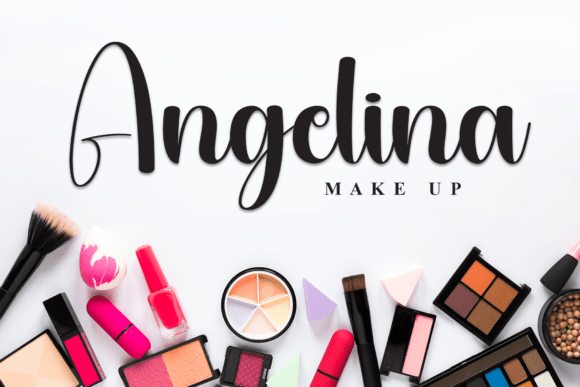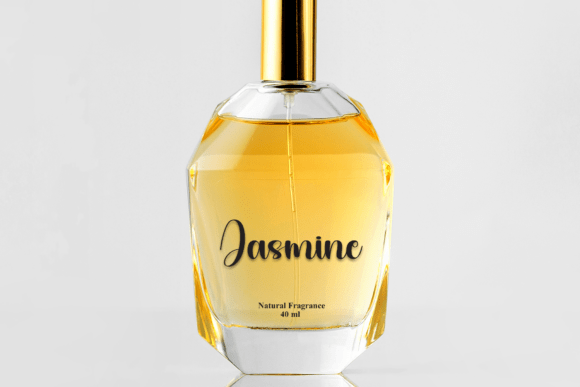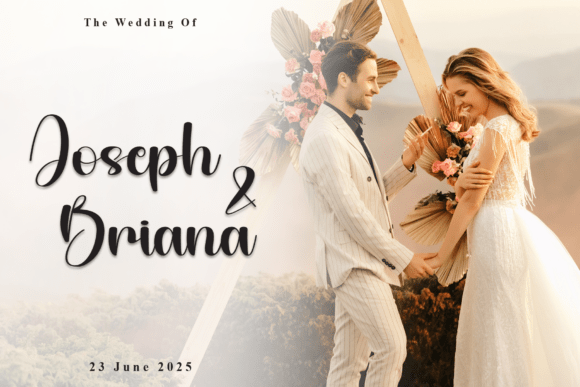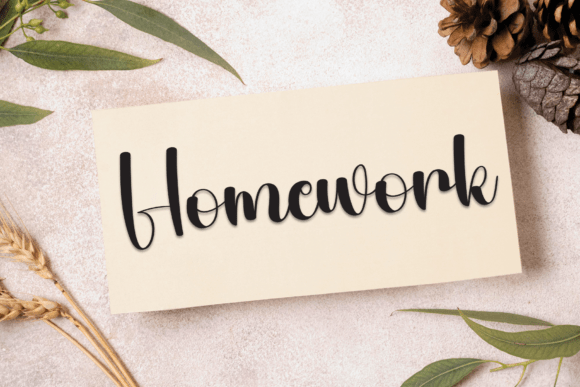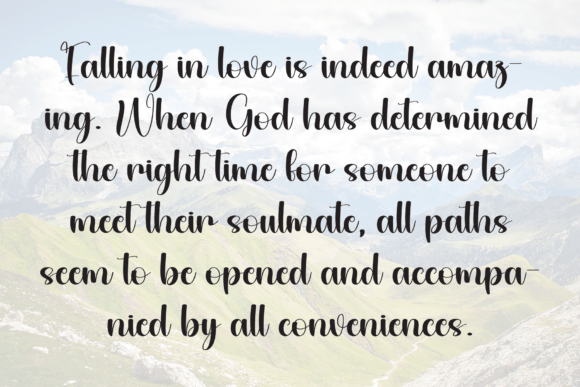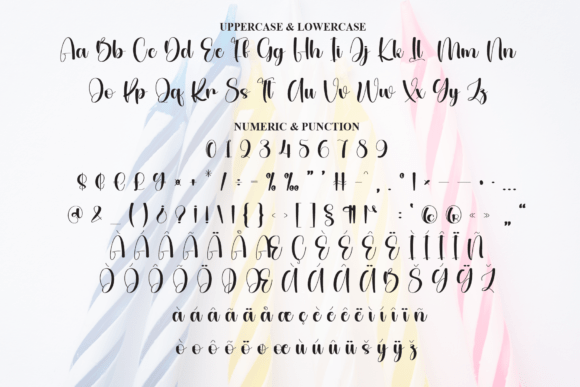
Celebrating the Art of Typography with Candle Birthday Font
There’s something magical about the moment you start brainstorming ideas for a new project – the spark of creativity, the thrill of the unknown, and the promise of something truly special. For designers, this moment is a chance to bring a concept to life, to infuse it with personality and style. And for those who want to add a touch of elegance and modern charm to their designs, Candle Birthday Font is the perfect companion.
This beautiful script font features fluid strokes, graceful curves, and carefully balanced letterforms that evoke the beauty of hand-drawn calligraphy with a contemporary edge. Whether you’re creating logos, invitations, packaging, or social media graphics, Candle Birthday Font adds a sophisticated and versatile touch to any design.
Candle Birthday Font Key Features
- Unique Characteristics: The Candle Birthday Font features a whimsical, handwritten design with intricate details and flourishes, making it perfect for adding a personal touch to birthday invitations, party decorations, and other celebratory materials.
- Style Variations: The Candle Birthday Font includes multiple style variations, including Regular, Italic, Bold, and Bold Italic, allowing designers to create a range of effects and moods.
Candle Birthday Font Review
I must say, I’m really enjoying the overall aesthetic of the Candle Birthday Font. ✨ The flowing, handwritten style gives off a warm and cozy vibe, perfect for birthday invitations, party decorations, or even wedding stationery. The font is versatile enough to be used in various contexts, from casual to more formal events.
- The font’s texture and subtle imperfections add a nice organic feel to the design. ✨ This makes it perfect for creating a sense of nostalgia or a homemade touch.
- The Candle Birthday Font includes a wide range of characters, including numbers, punctuation, and special characters. This makes it easy to use in various applications, from digital design to print materials.
- The font’s sizes and styles are well-designed, allowing for easy scaling and customization to suit different design needs.
While the Candle Birthday Font is overall a great choice, I do have a few concerns. ⚠️ The font may not be suitable for body text due to its casual and informal style. It’s best used for titles, headings, or short phrases where the emphasis is on the visual appeal.
Overall, I’m impressed with the Candle Birthday Font’s unique style and versatility. With a little creativity, this font can add a personal touch to any design project.
The Candle Birthday Font is perfect for creating beautiful birthday invitations, cards, and presentations.
Use it to add a personal touch to your designs and make them stand out.
– Birthday invitations and cards
– Custom birthday graphics and designs
– Birthday presentations and documents
– Party decorations and signage